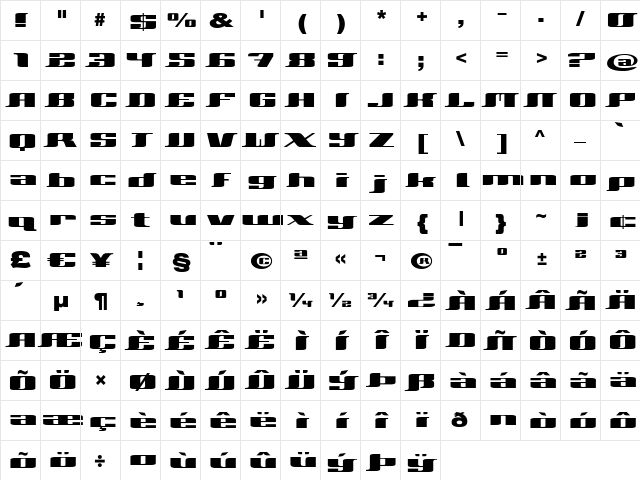
Xeranthemum Regular
Design Context for Xeranthemum Typeface
Xeranthemum is a composed and adaptable typeface that performs quietly and consistently across a wide range of design contexts.